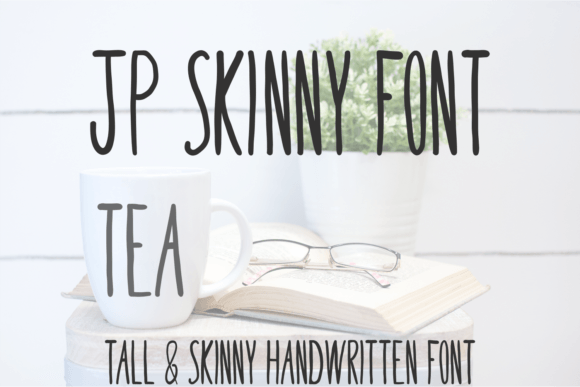
Introducing JP Skinny Tea Font - The Ultimate Sans Serif Masterpiece for Farmhouse Signs!
Step into the world of rustic charm and farmhouse elegance with JP Skinny Tea Font, the captivating sans serif font family designed to bring a touch of rural sophistication to your creative projects. Whether you're a seasoned graphic designer or a DIY enthusiast, this font is your ultimate companion for crafting personalized farmhouse signs that radiate warmth and timeless appeal.
With its tall and slender structure, JP Skinny Tea Font exudes a sense of minimalism and grace. Each letterform is meticulously crafted to evoke the beauty of handwritten signage, capturing the essence of rustic living. Its clean lines and elegant curves add a touch of refinement, making it the perfect choice for creating signs that blend seamlessly into any farmhouse-inspired décor.
Dive into the versatility of this remarkable font and let your creativity soar. From classic farmhouse signs to whimsical home décor accents, JP Skinny Tea Font adapts effortlessly to a multitude of projects. Its clean and crisp strokes lend themselves perfectly to laser cutting, vinyl lettering, and digital design, making it a must-have for crafters seeking unique and eye-catching designs.
Discover the transformative power of JP Skinny Tea Font as it effortlessly elevates your projects to new heights. Transform ordinary wooden planks into charming farmhouse signs, add a touch of rustic elegance to your home décor, or create personalized gifts that exude warmth and individuality. This font empowers you to bring your creative vision to life, leaving a lasting impression on all who behold your creations.